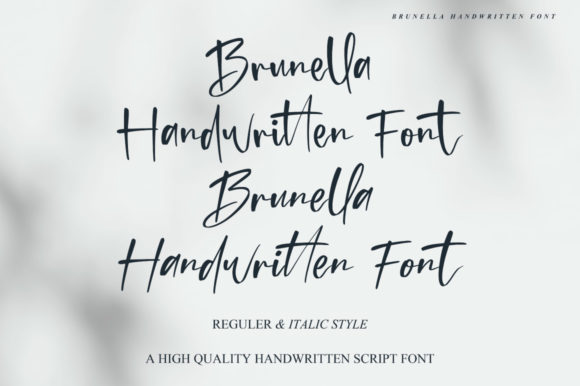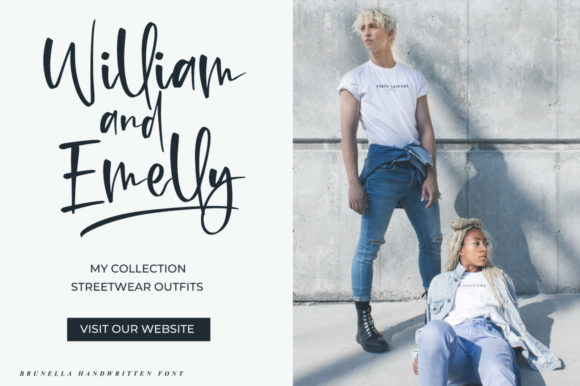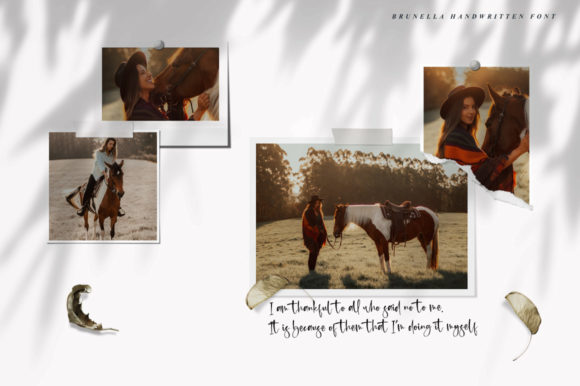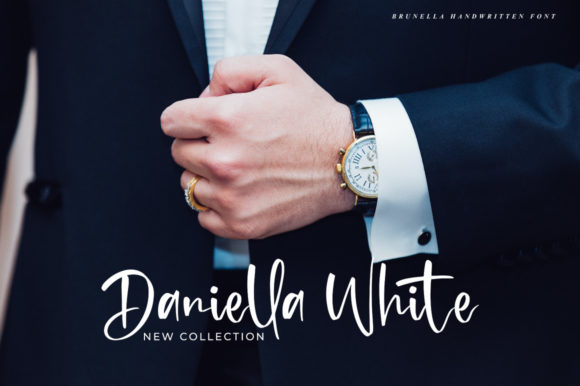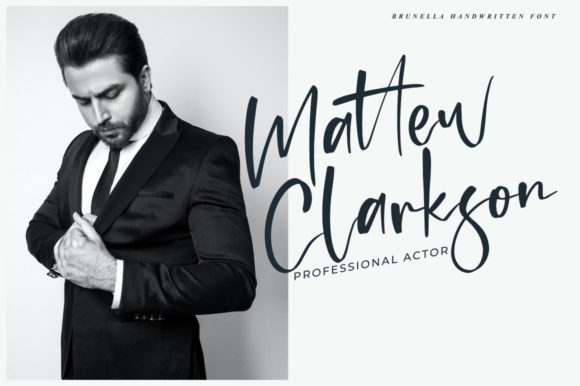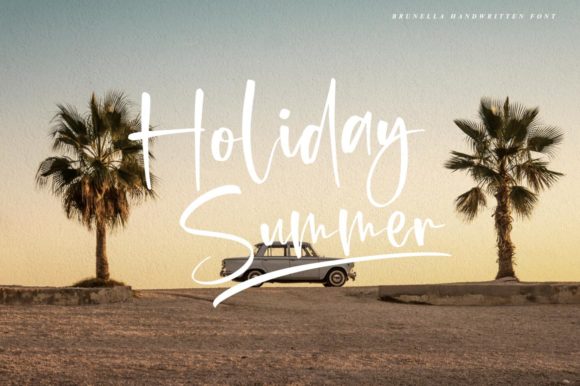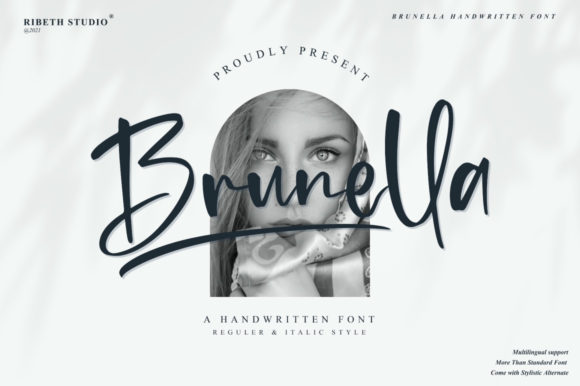
Brunella Font: Elevate Your Designs with Elegance and Class
In the world of typography, fonts play a crucial role in conveying the tone and personality of a design. For those seeking a beautiful and refreshing look, Brunella Font is an excellent choice. This lovely and delicate script font exudes elegance and class, making it perfect for designers and crafters who want to add a touch of sophistication to their work.
The Story Behind Brunella Font
Brunella Font was particularly crafted for those who need a beautiful and refreshing look to their designs. Its creation was inspired by the desire to produce a font that is both elegant and easy to read. The result is a stunning script font that is sure to capture the attention of your audience.
Key Features of Brunella Font
Brunella Font boasts several key features that make it an excellent addition to any design project. Some of its notable features include:
- Elegant and Delicate: Brunella Font is characterized by its elegant and delicate strokes, making it perfect for designs that require a touch of sophistication.
- Script Font: As a script font, Brunella Font is ideal for adding a personal and creative touch to your designs.
- Easy to Read: Despite its delicate nature, Brunella Font is easy to read, making it suitable for body text and headings.
- Versatile: Brunella Font can be used in a variety of design projects, from wedding invitations and branding materials to packaging and digital media.
Uses of Brunella Font
Brunella Font is a versatile font that can be used in a wide range of design projects. Some of the most popular uses of Brunella Font include:
- Wedding Invitations: Add a touch of elegance and sophistication to your wedding invitations with Brunella Font.
- Branding Materials: Use Brunella Font to create stunning branding materials, such as logos, business cards, and letterheads.
- Packaging: Brunella Font is perfect for packaging designs that require a touch of elegance and sophistication.
- Digital Media: Use Brunella Font to create stunning digital media, such as social media graphics, blog posts, and email newsletters.
Tips for Using Brunella Font
To get the most out of Brunella Font, here are some tips to keep in mind:
- Pair with Other Fonts: Brunella Font pairs well with other fonts, such as sans-serif fonts and serif fonts. Experiment with different font combinations to find the perfect pairing.
- Use in Moderation: While Brunella Font is elegant and sophisticated, it can be overwhelming if used excessively. Use it in moderation to create a balanced design.
- Adjust Font Size: Experiment with different font sizes to find the perfect size for your design.
| Font Name | Brunella Font |
| Author | Ribeth Studio |
In conclusion, Brunella Font is a lovely and delicate script font that exudes elegance and class. Its elegant strokes, ease of readability, and versatility make it an excellent addition to any design project. Whether you’re a designer or crafter, Brunella Font is sure to elevate your designs and add a touch of sophistication. So why not give Brunella Font a try and see the difference it can make in your designs?